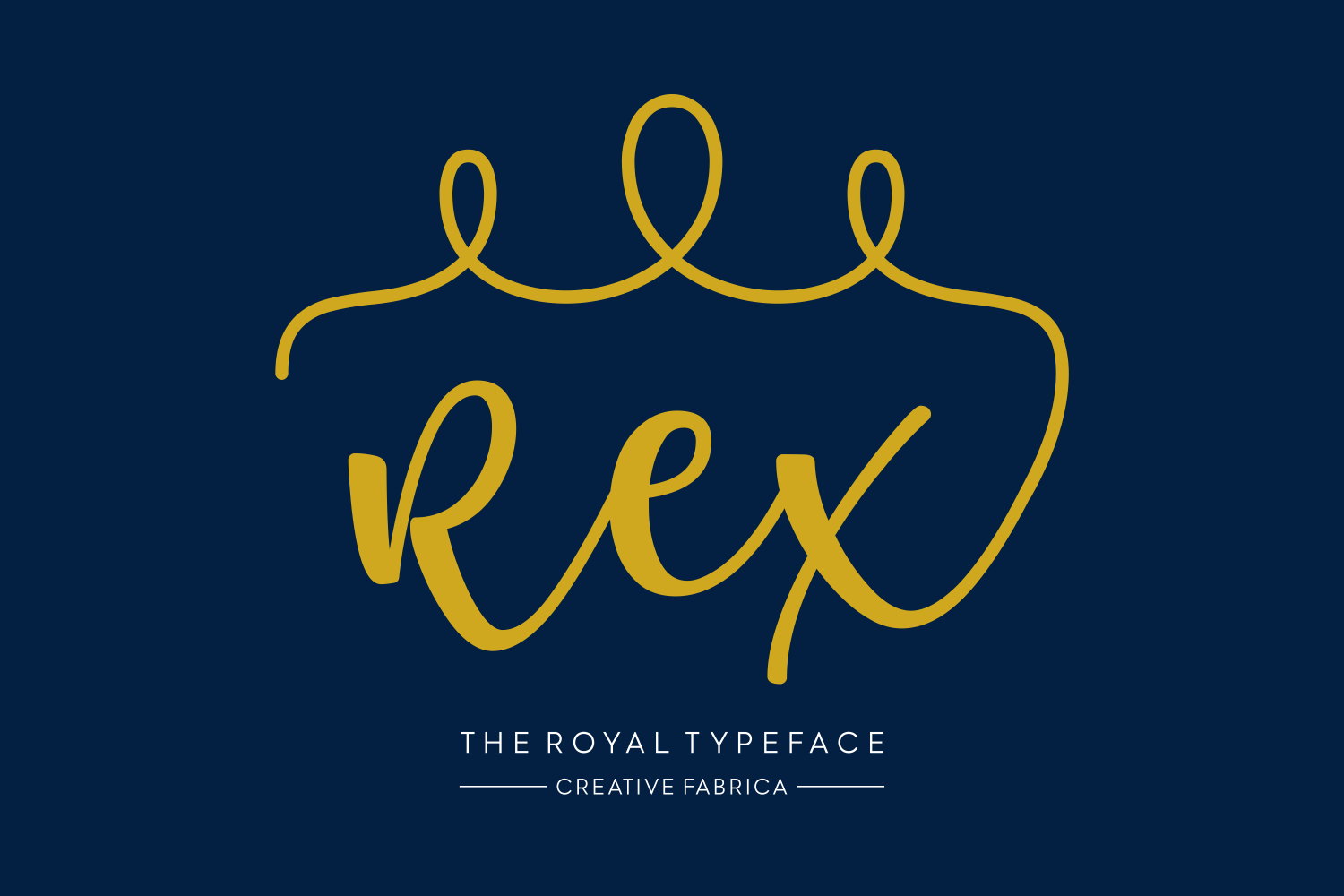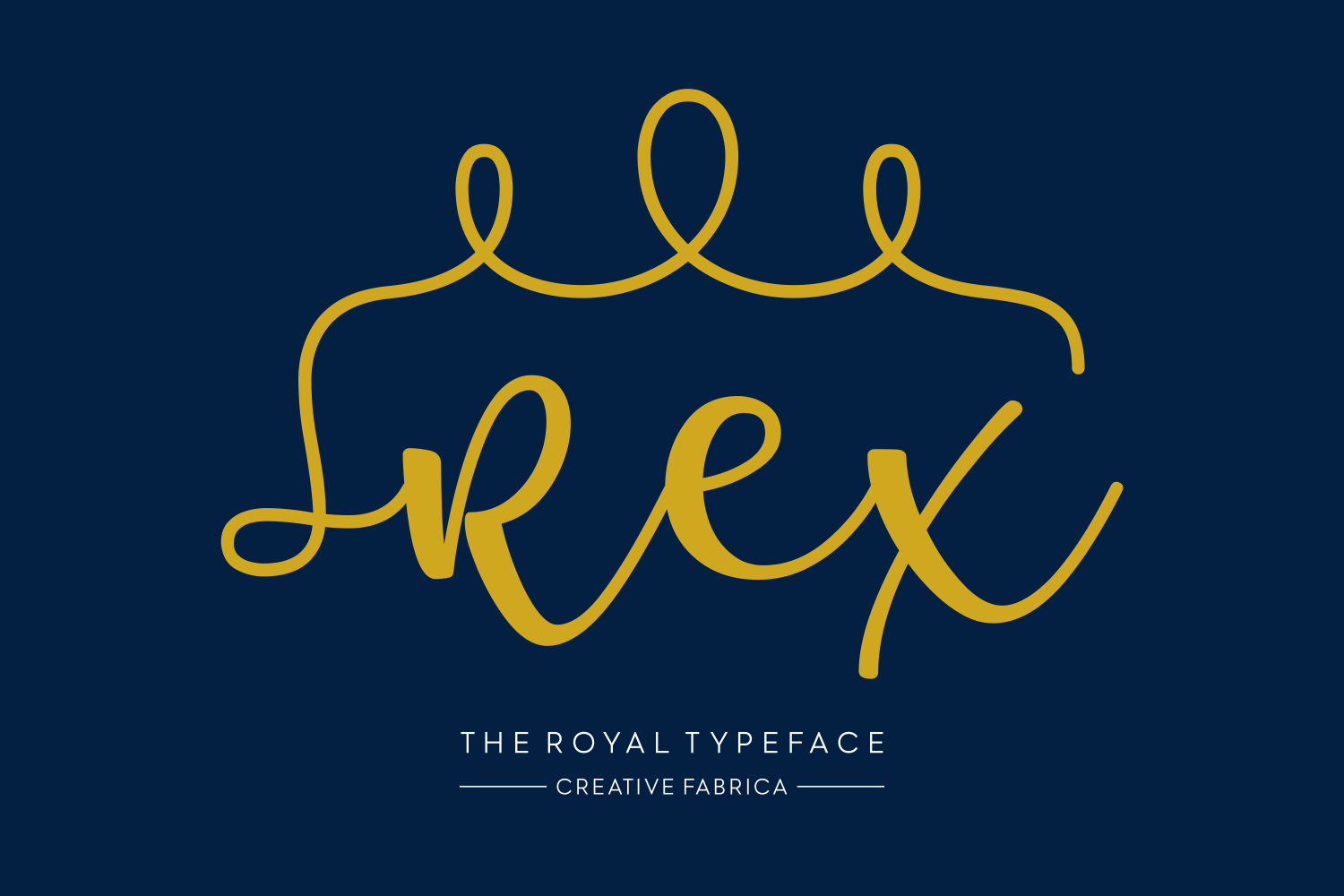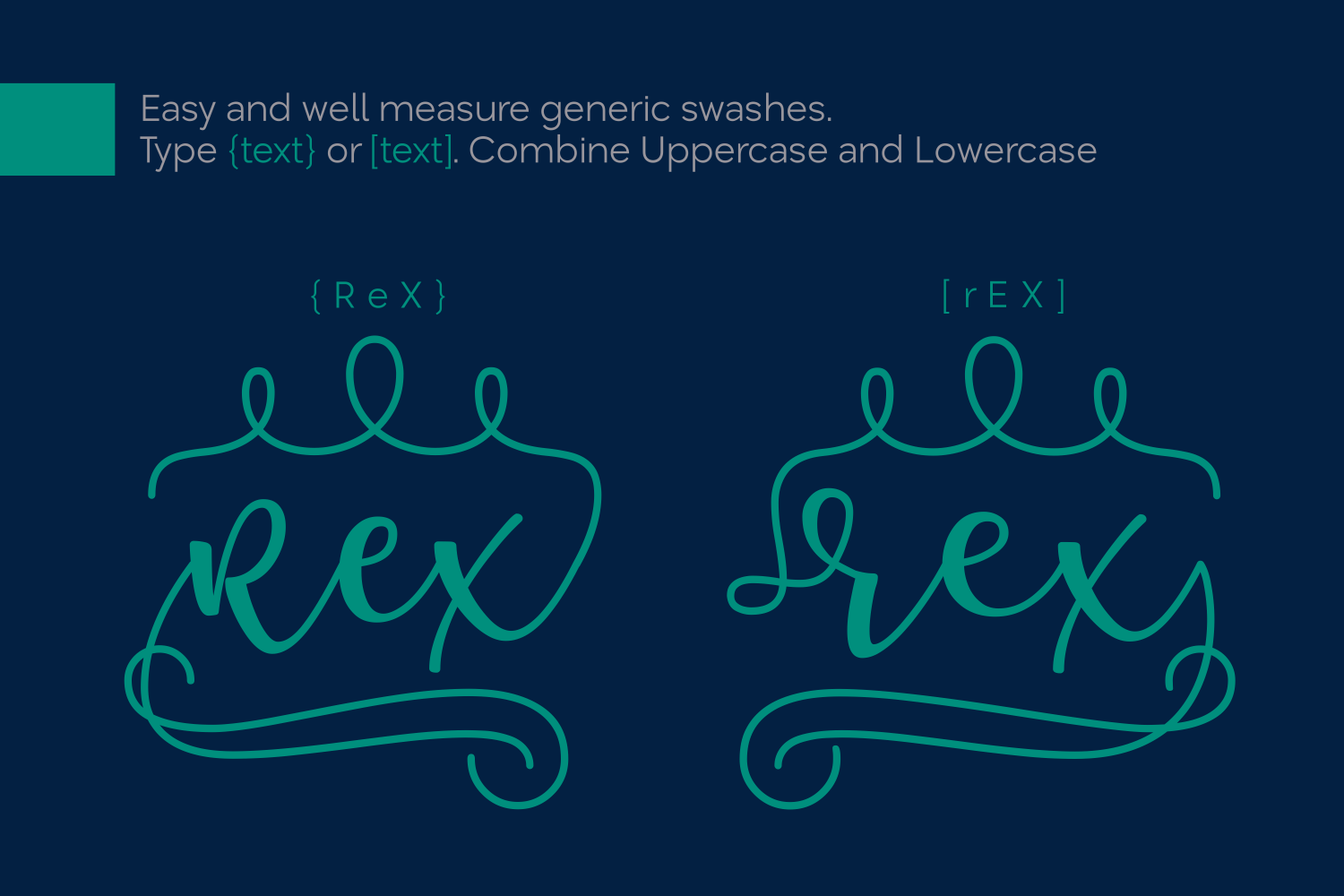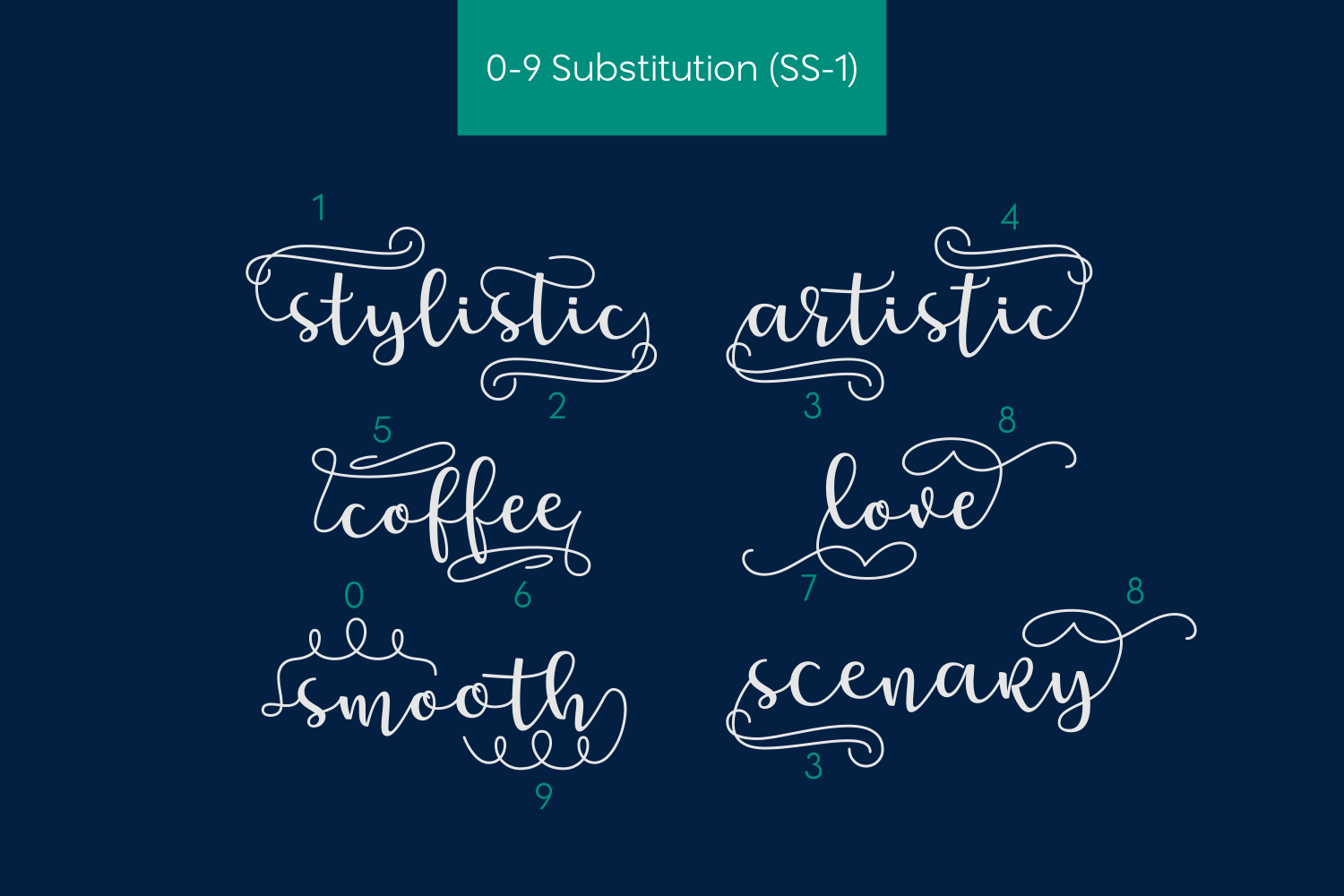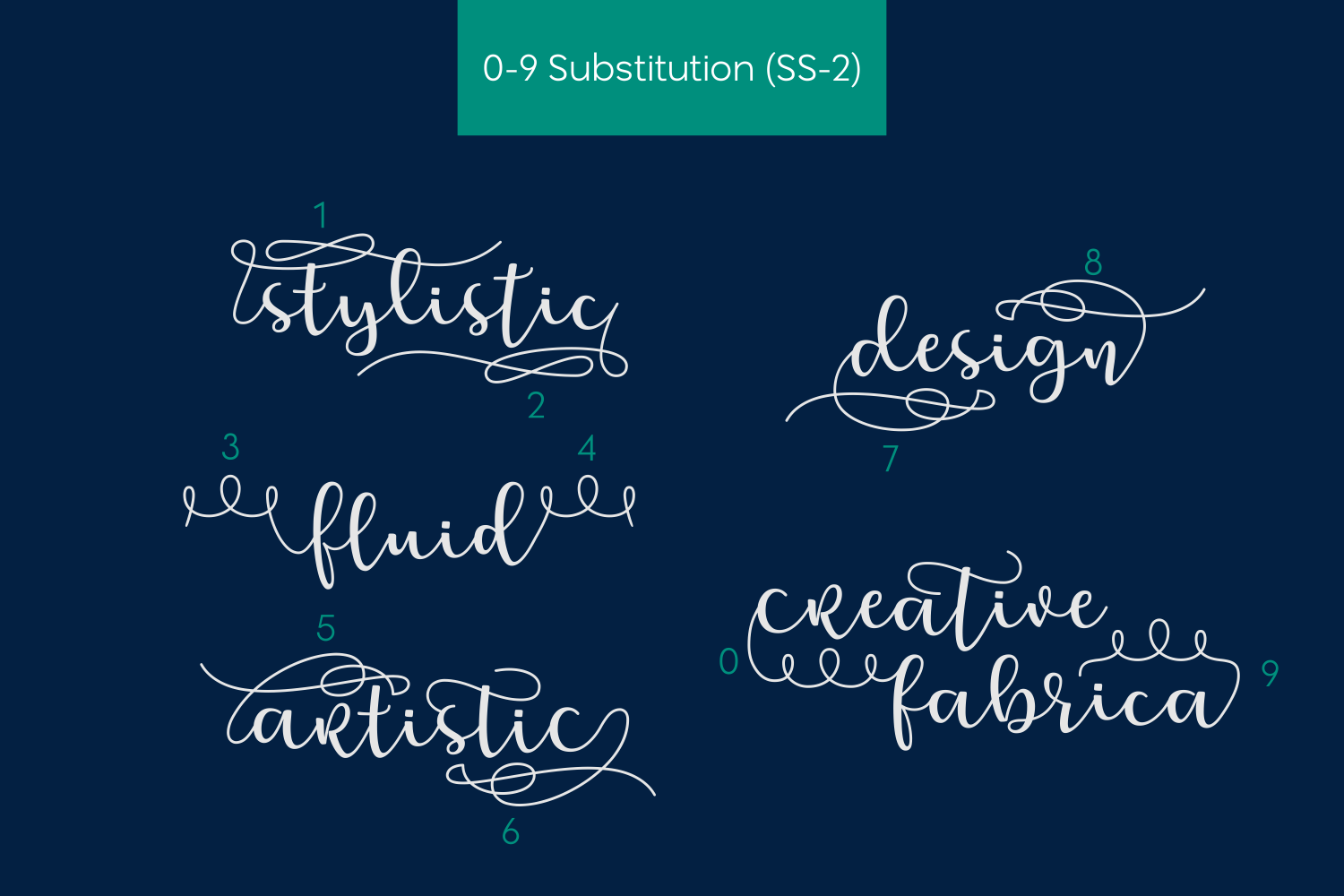
Rex Font
About Rex Font
Rex means King in Latin. Which is very suitable for what we call a royal typeface with a modern twist.
Rex is a contemporary font with hints to a royal past. Rex is packed with swashes that are super easy to access. It’s decorative and super fun to use.